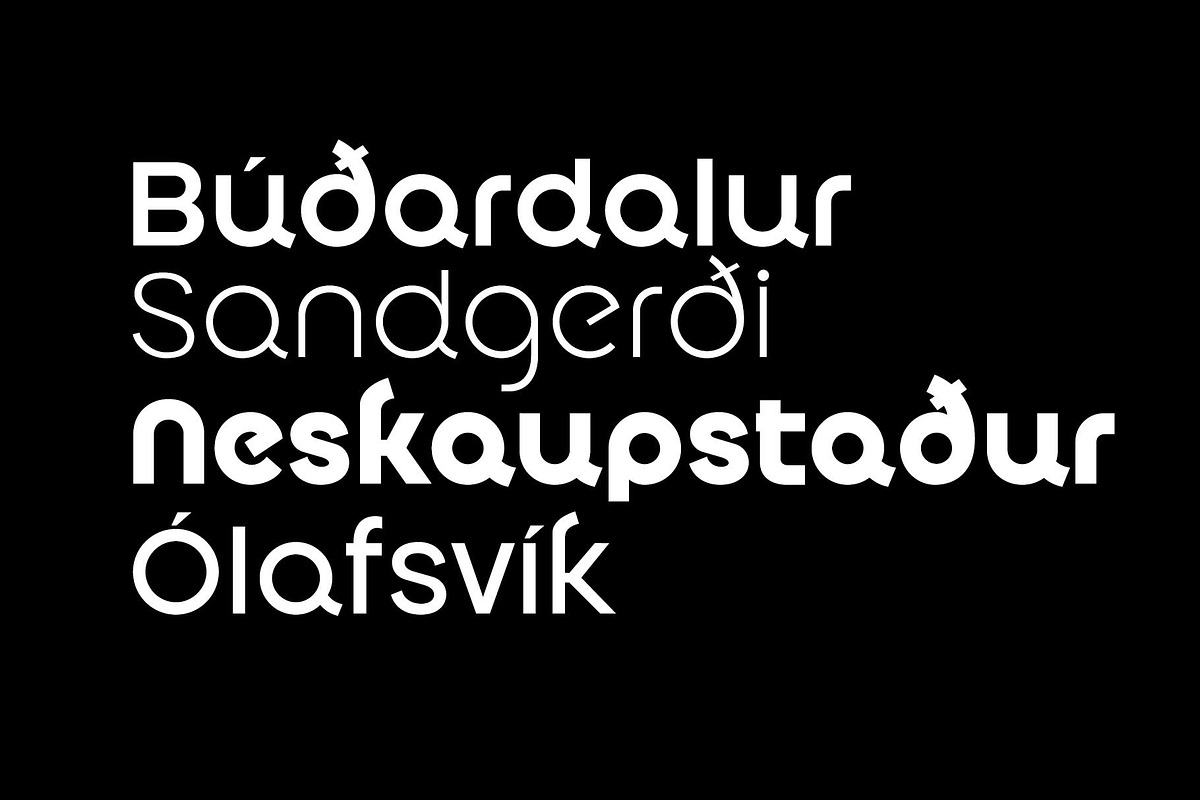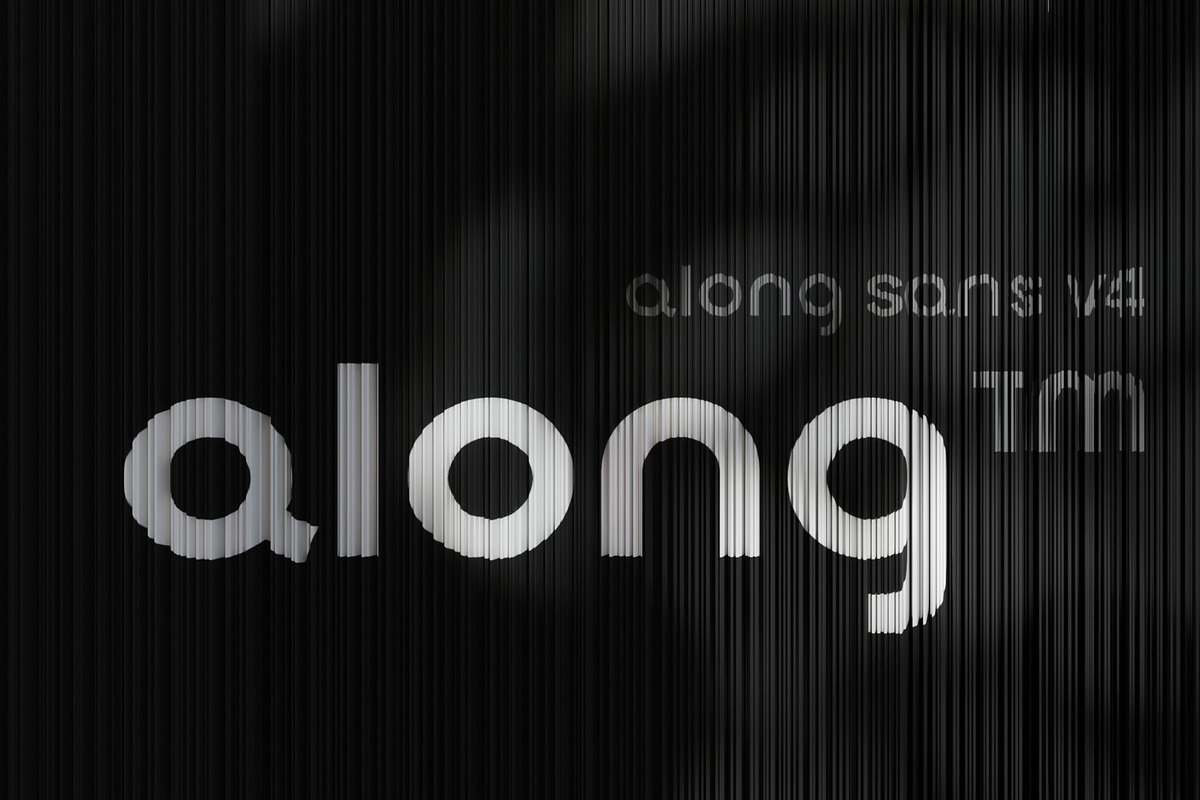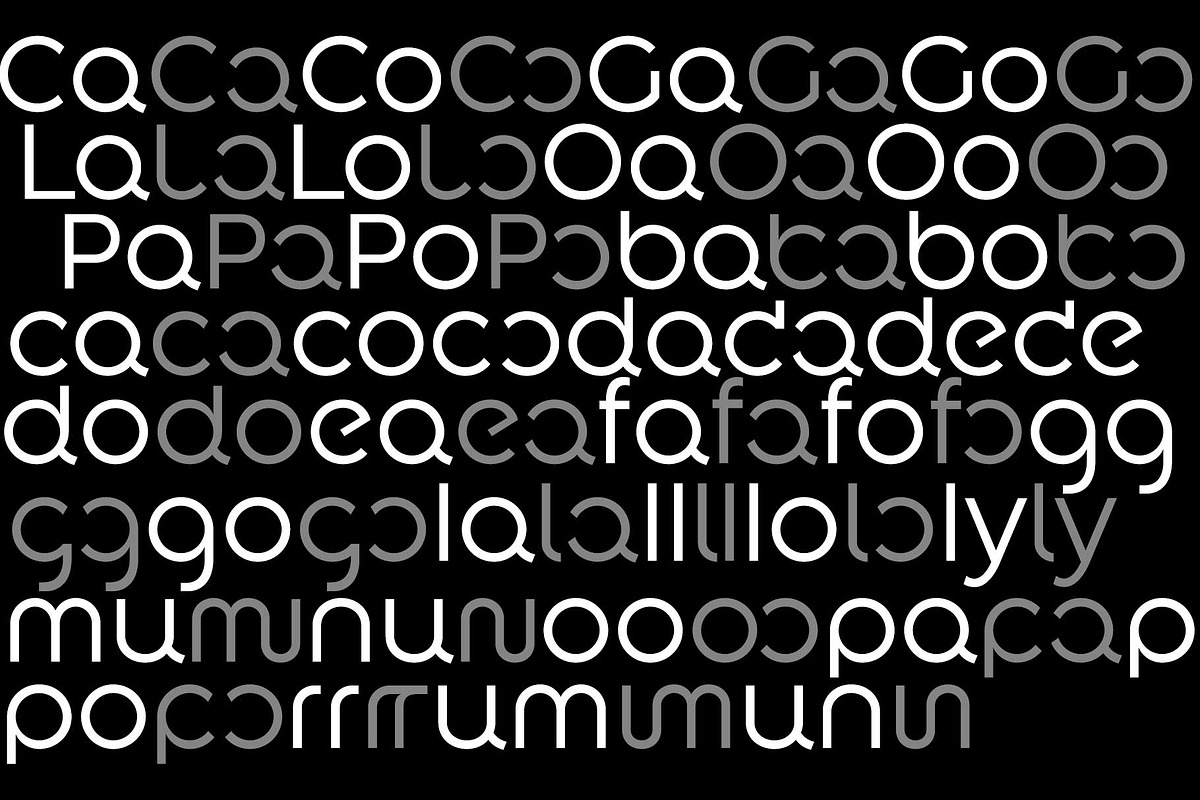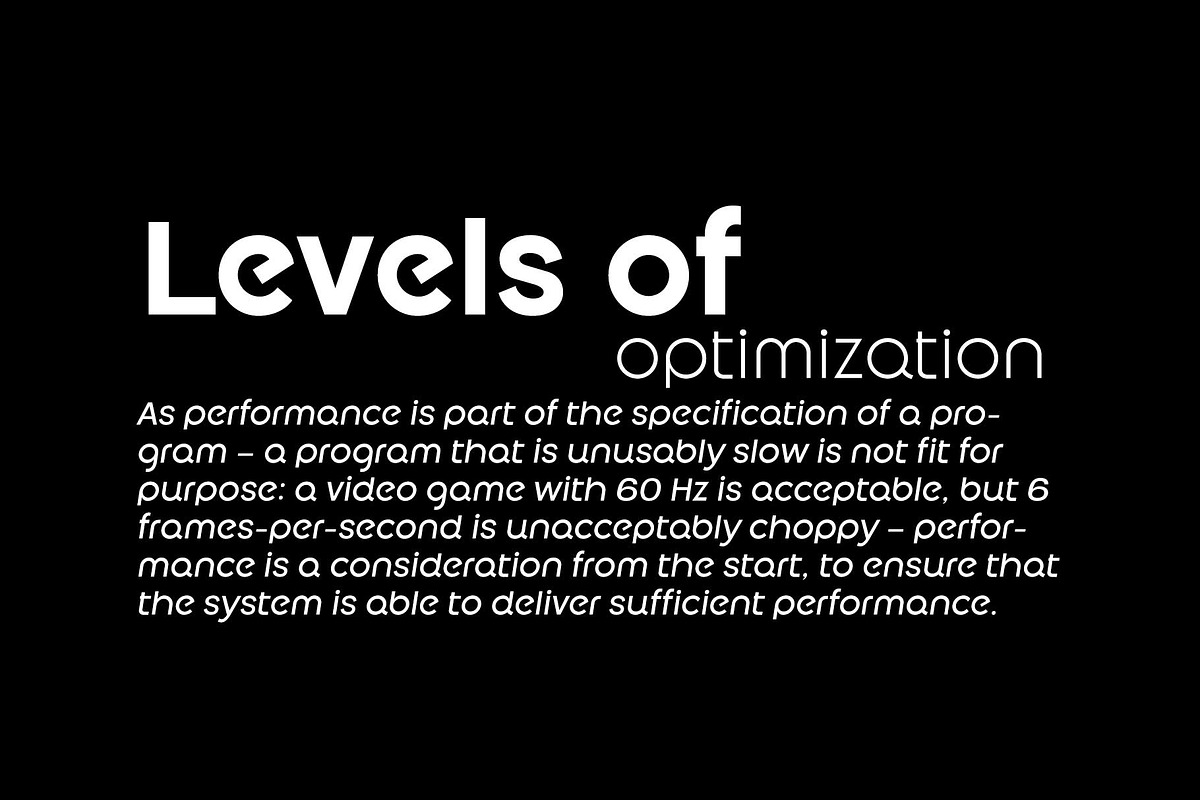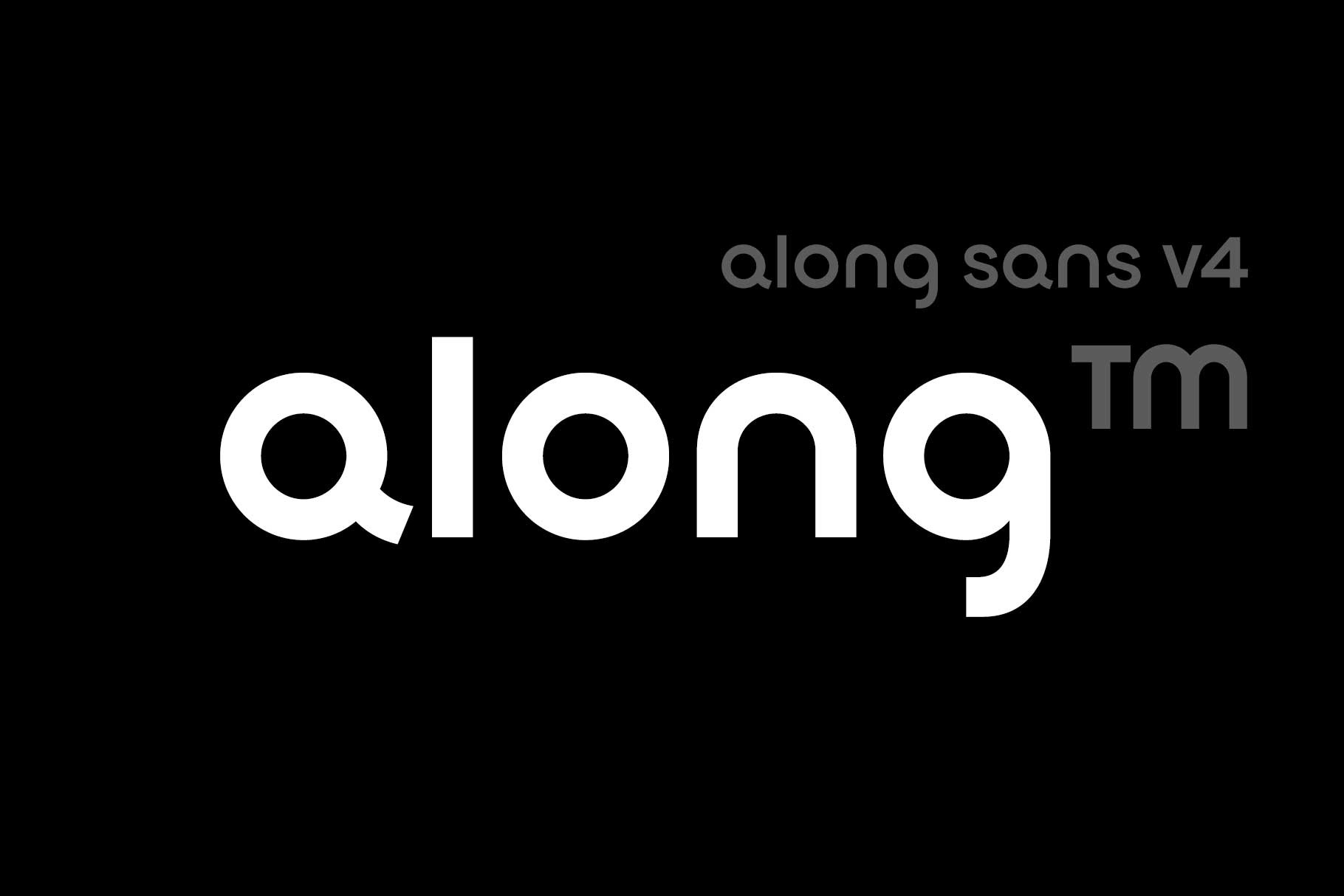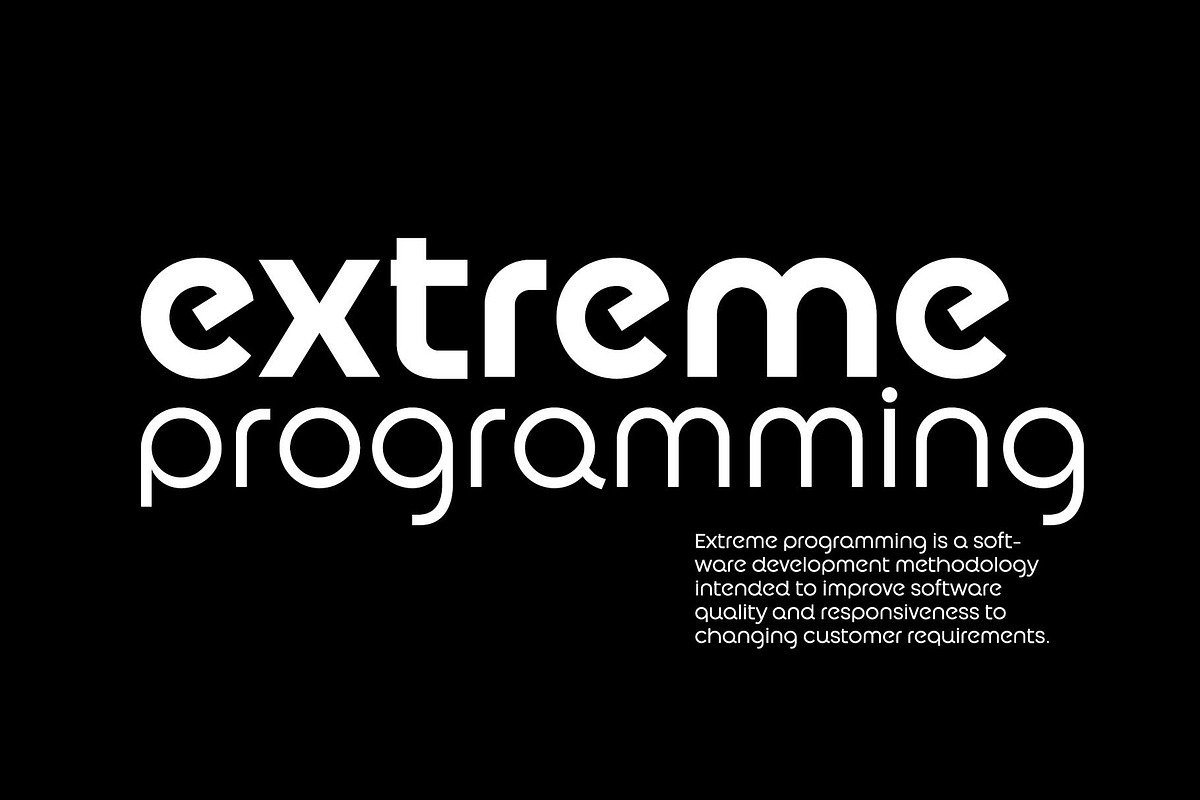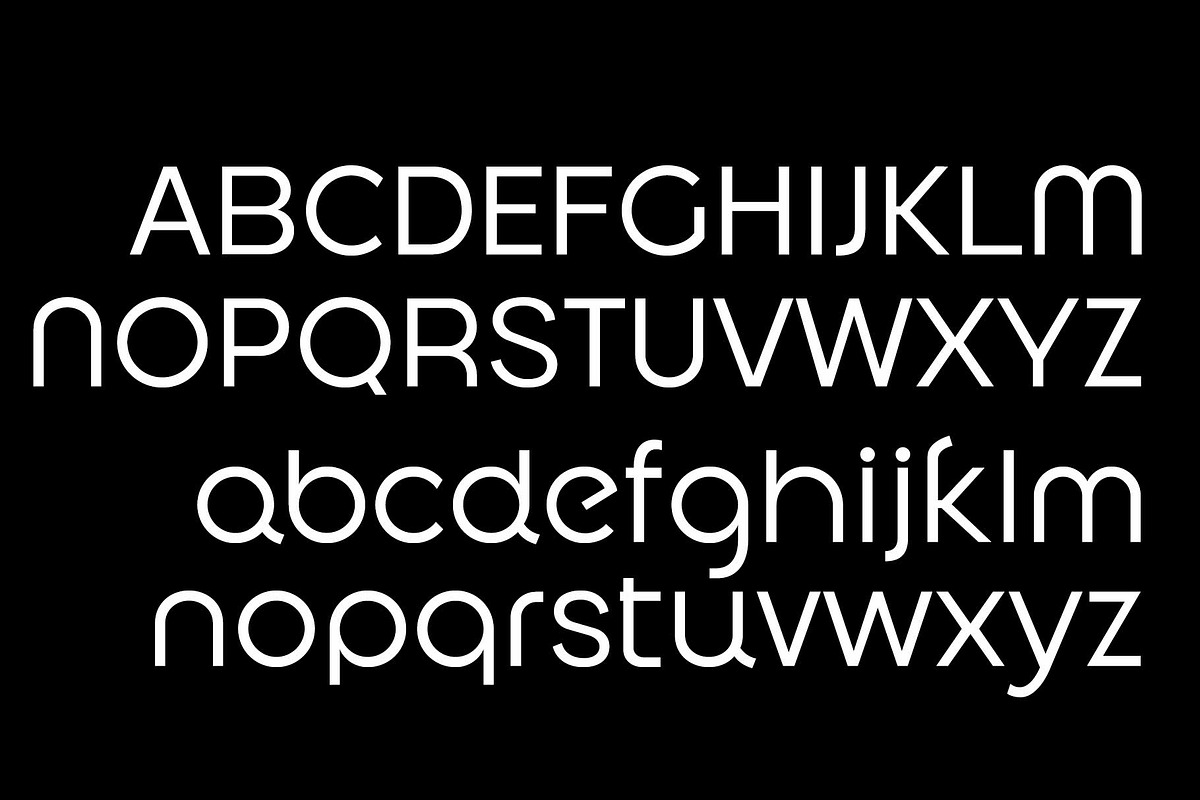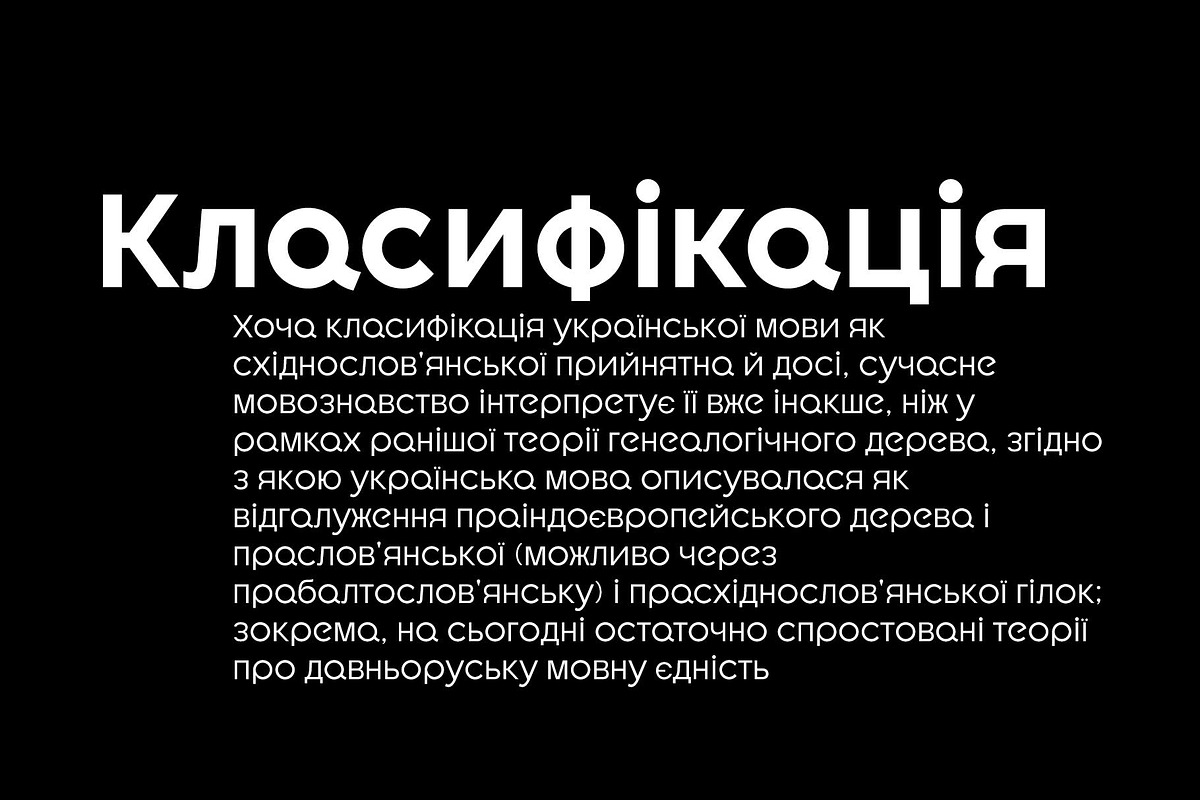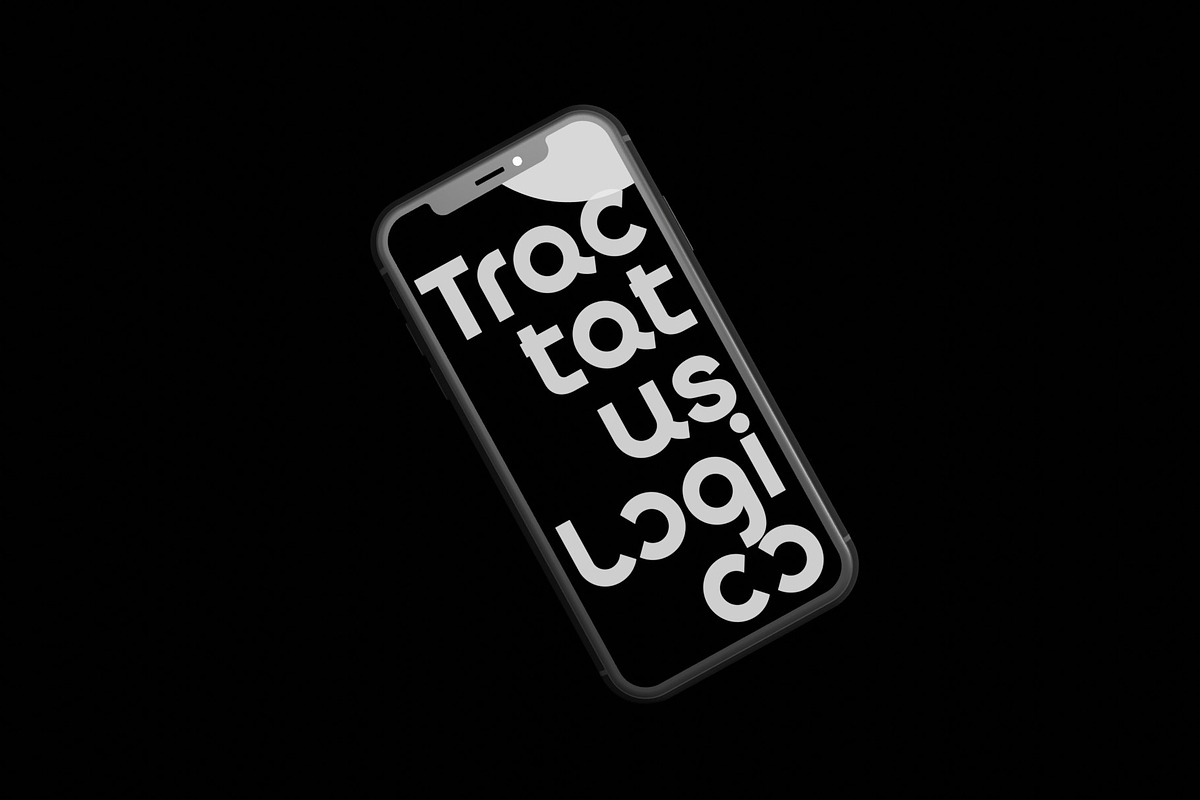
Along Sans v4 Font Family
Along Sans font family has evolved to reflect geometry-based glyph design and modern typography trends. The appropriate transformation of the lowercase letters a, d, and u alleviates the tension of the grotesque temperament. All of the glyphs have been refined to focus more on balance and rhythm, making it a smart tool for designers. And, the standard ligatures of the previous version returned to discretionary ligatures to suit their original use. Be sure to refer to the Glyphs window in the app you are using. In addition, basic Cyrillic and Ukrainian language sets are supported. Also, check the Glyph window. Thanks.